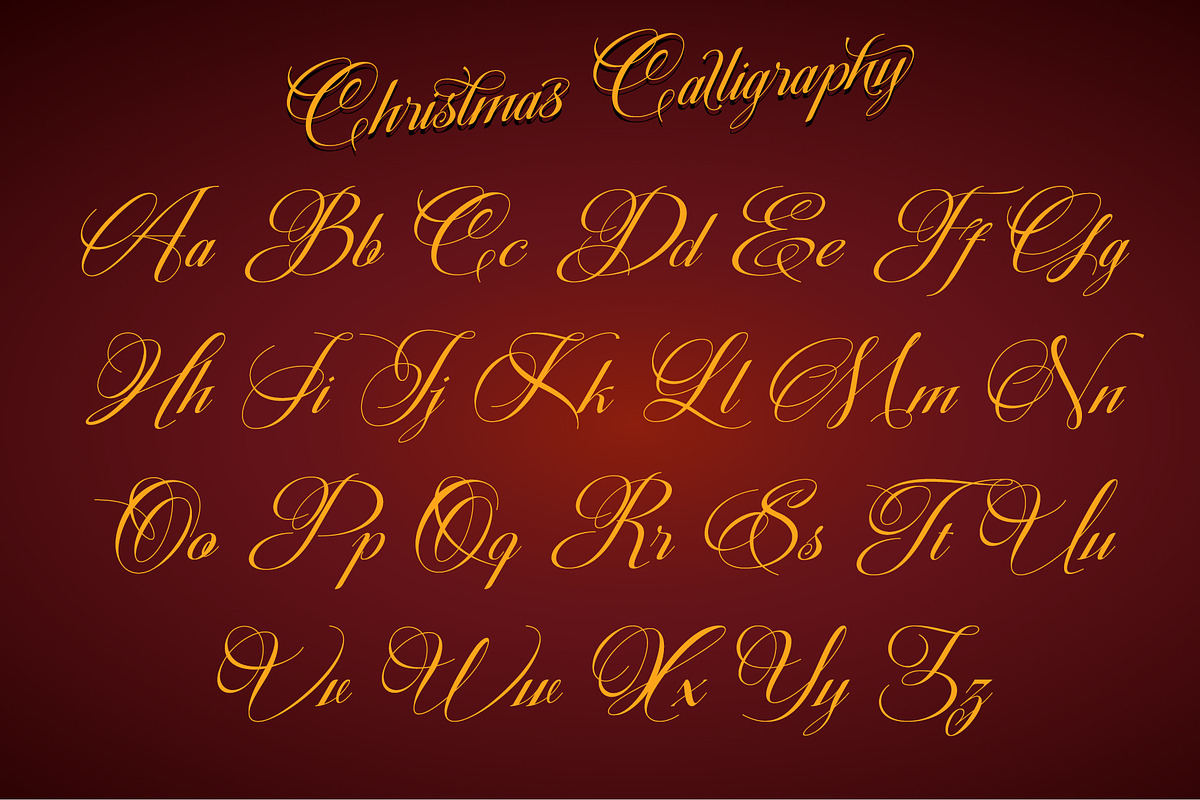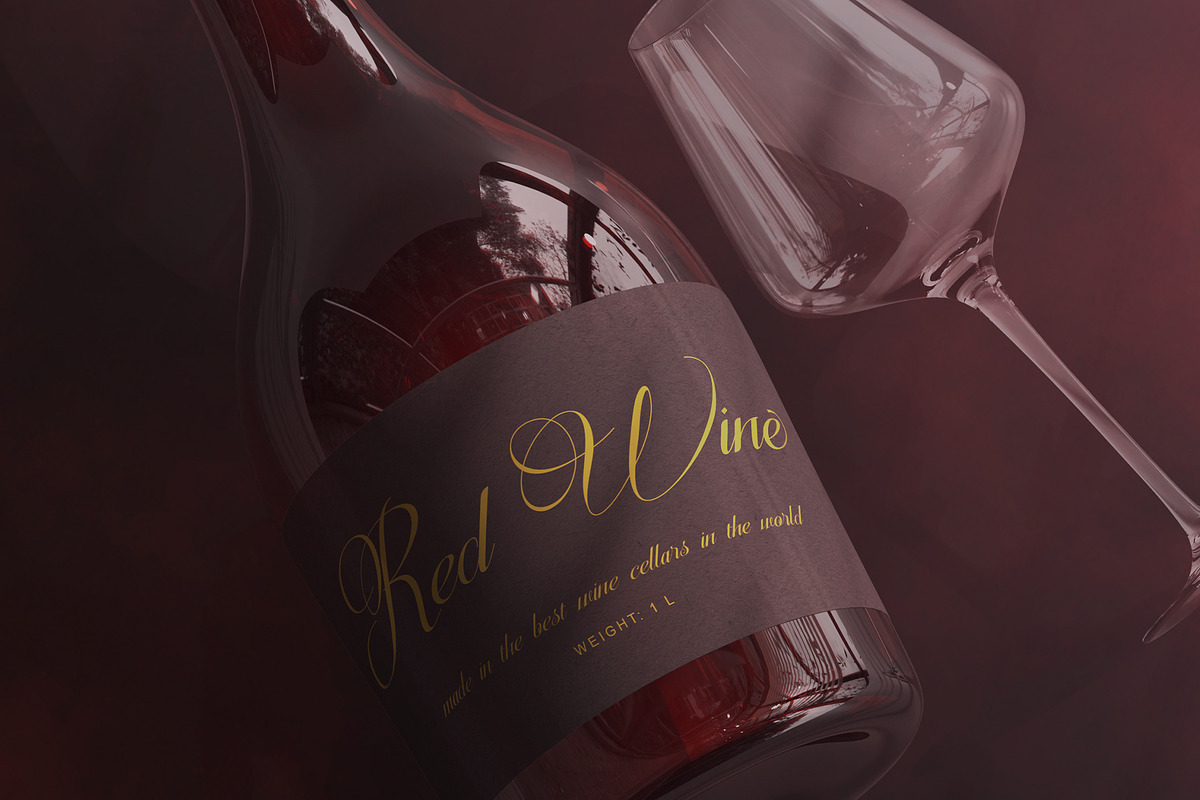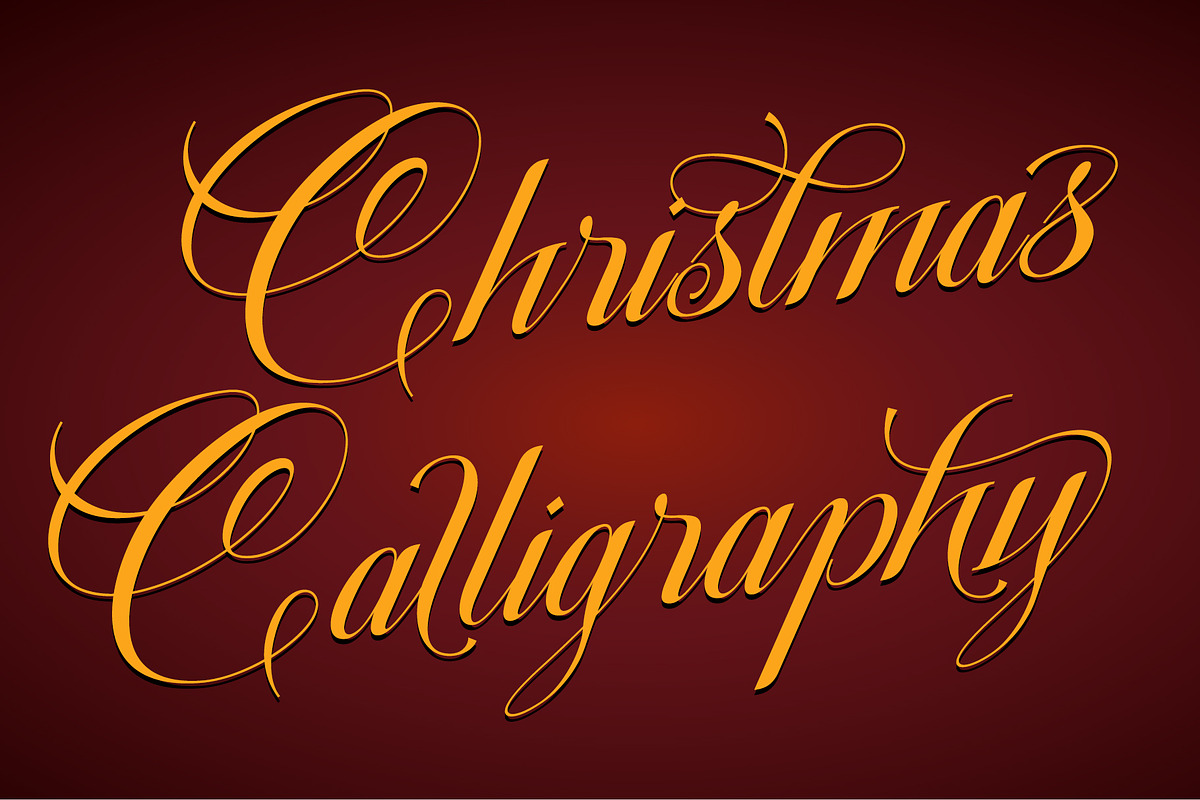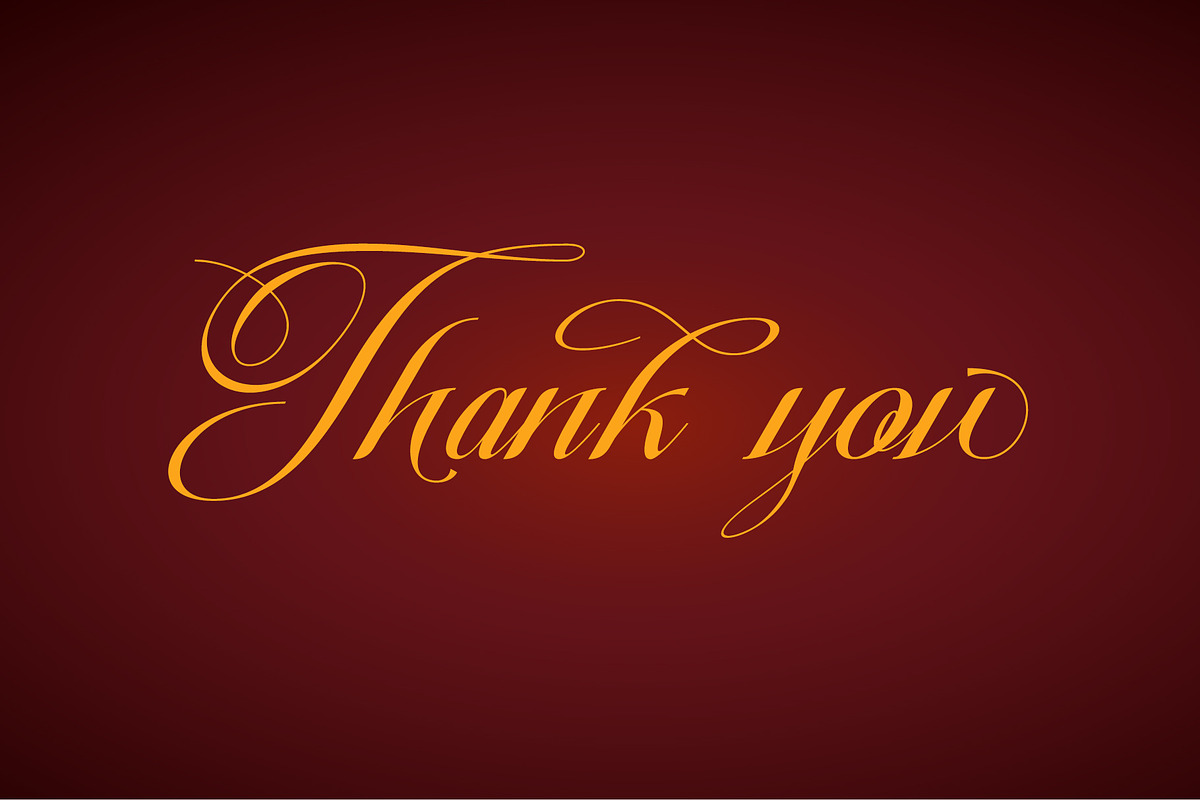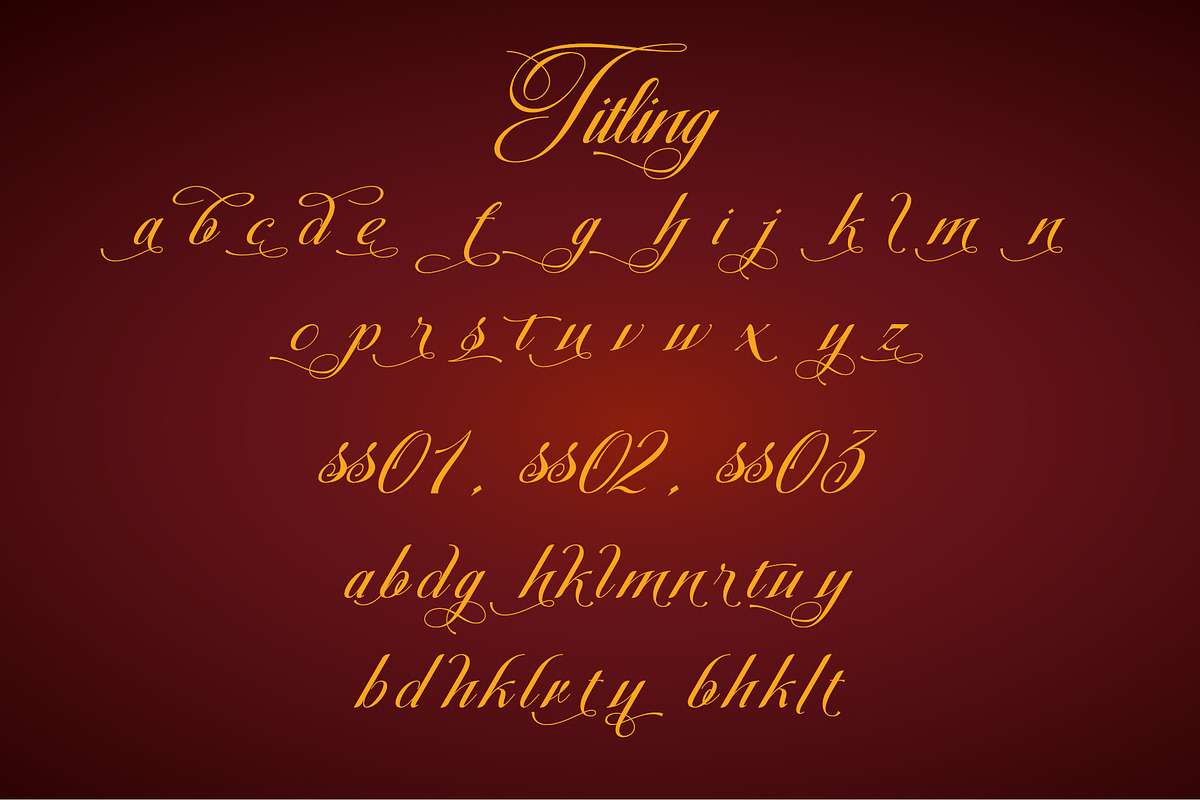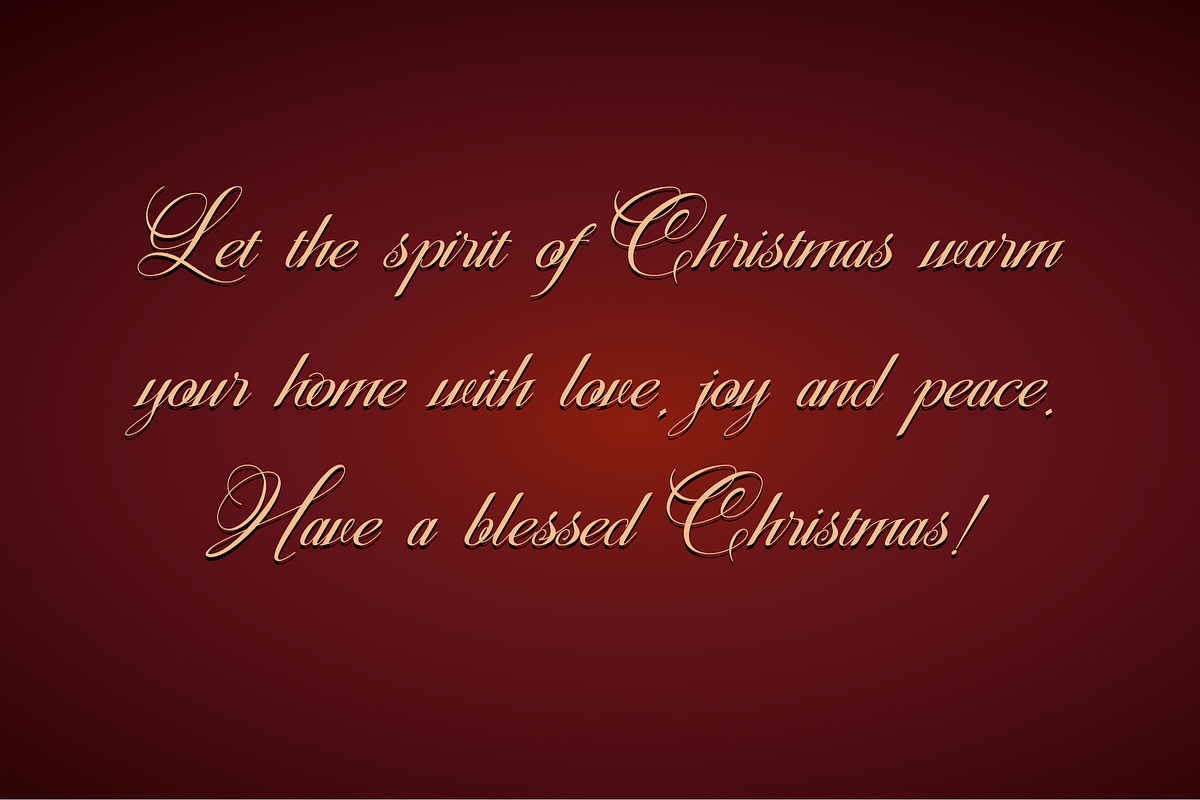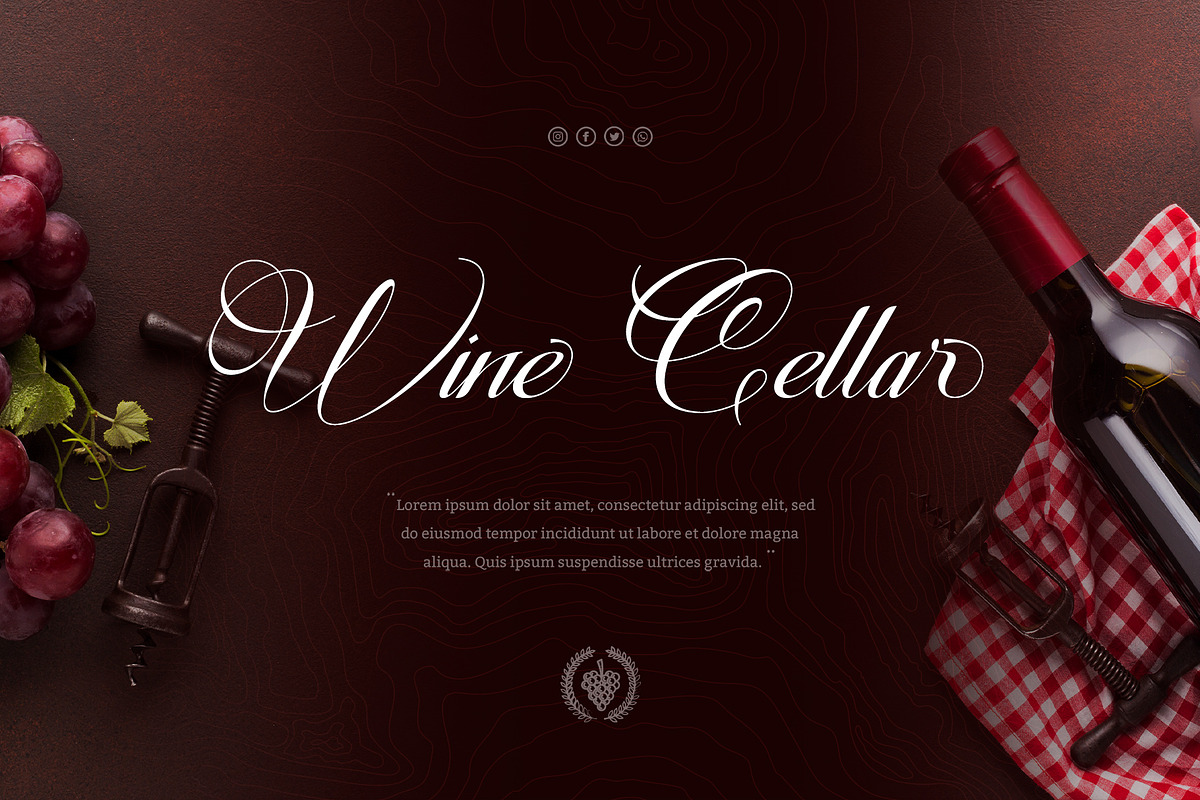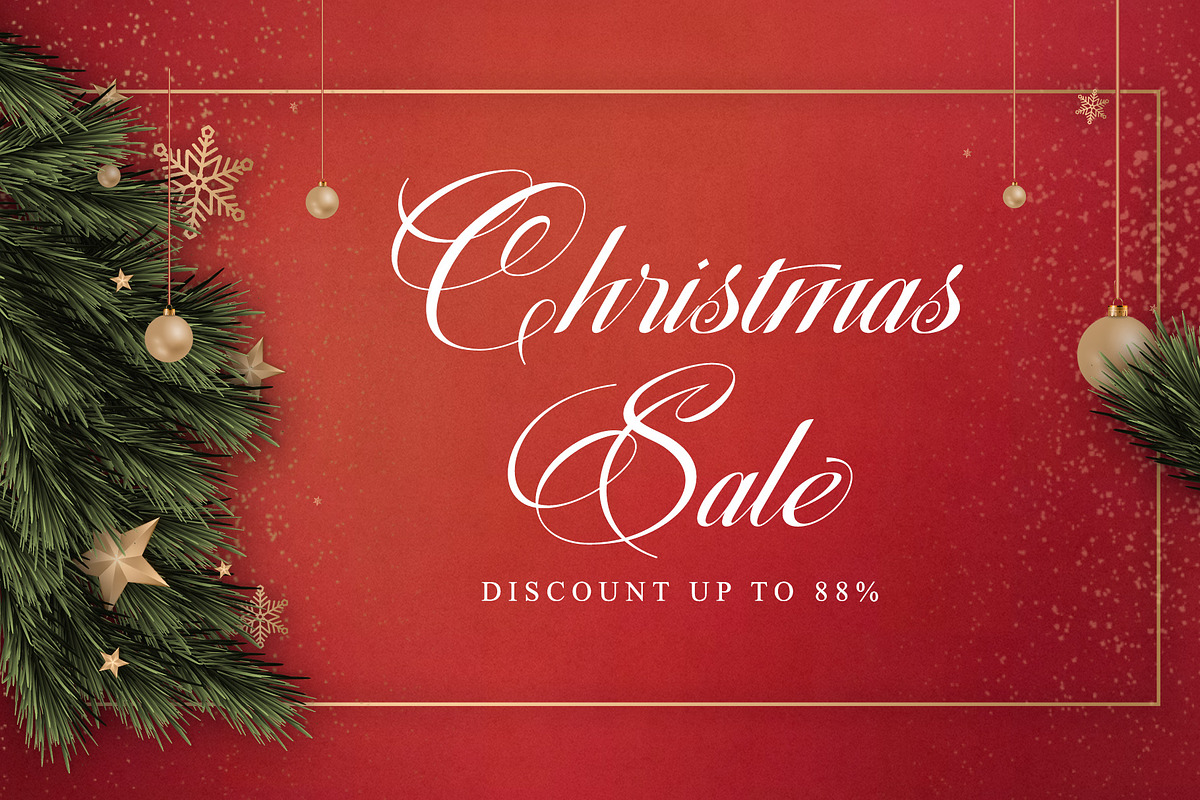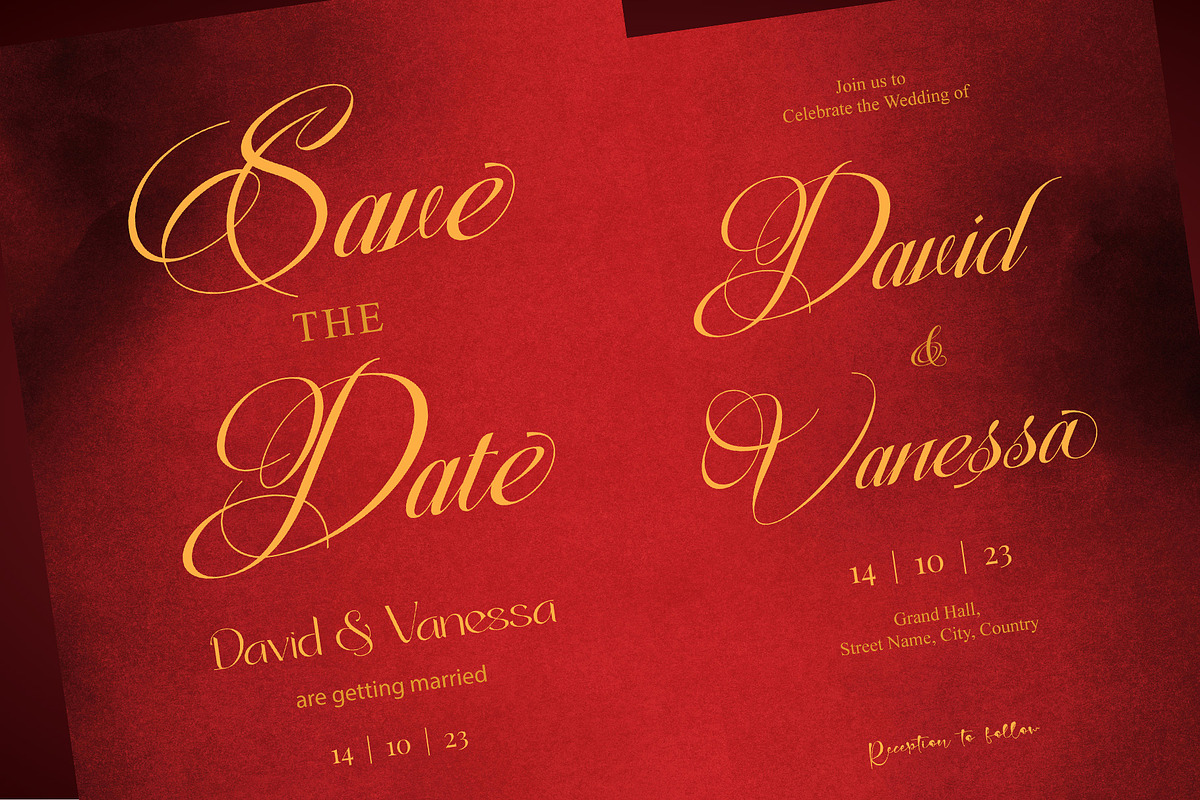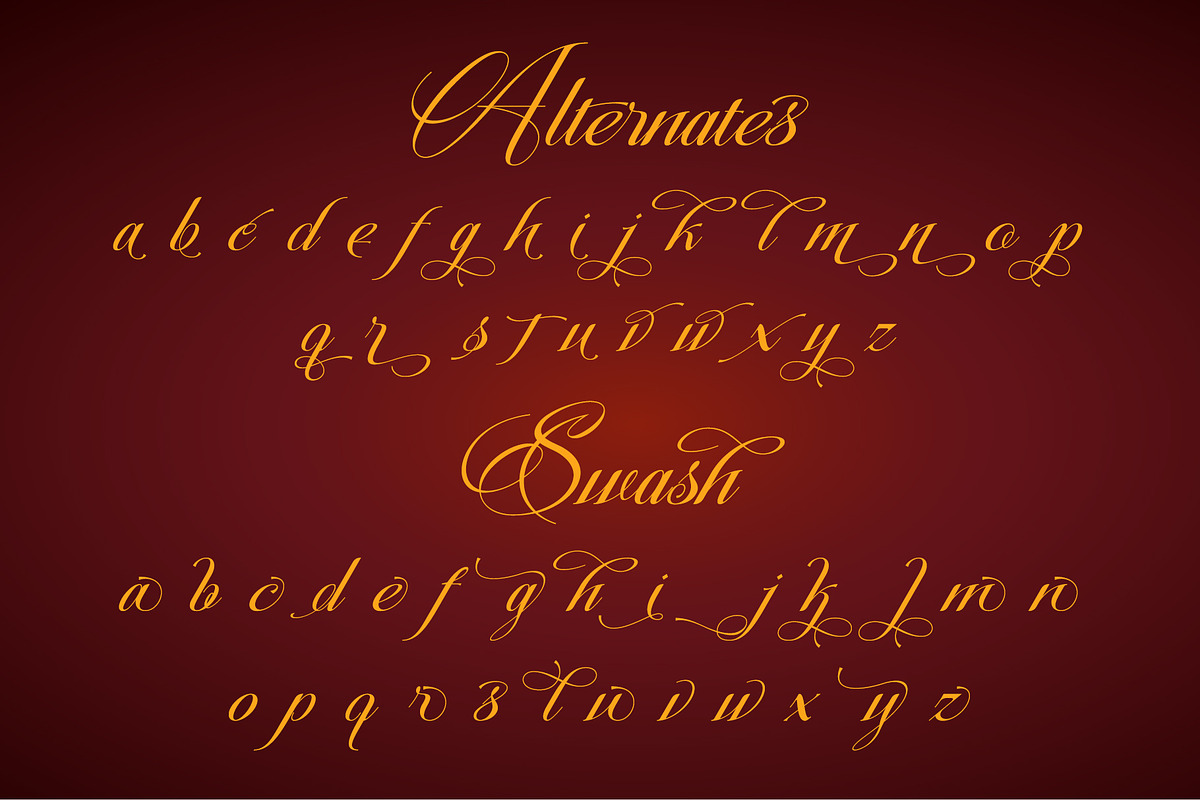
Christmas Calligraphy
Christmas calligraphy is a dazzling formal calligraphy font that exudes sophistication and elegance. Fall in love with its ravishing style and use it to create beautiful designs. This will make the Christmas moment more classy and glamorous. This font is PUA encoded which means you can access all the glyphs and sweeps easily!
Many Features:
- Support multilingual; ä ö ü Ä Ö Ü ß ¿ ¡
- lowercase and uppercase letters
- Alternate, Swash, Titling, Ligature, SS01, SS02, & SS03